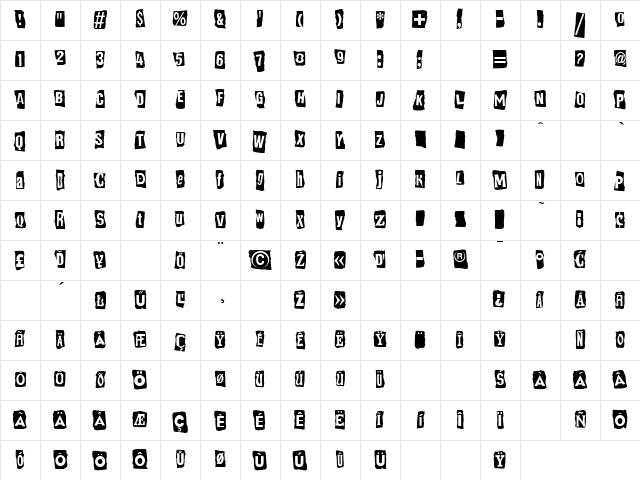
RansomNoteReversed Regular Free Font
RansomNoteReversed Regular
Foundry: Digitized by Dan X. Solo. Software by Dover Publications, Inc
Design Context for RansomNoteReversed
RansomNoteReversed is a composed and adaptable typeface that performs quietly and consistently across a wide range of design contexts.